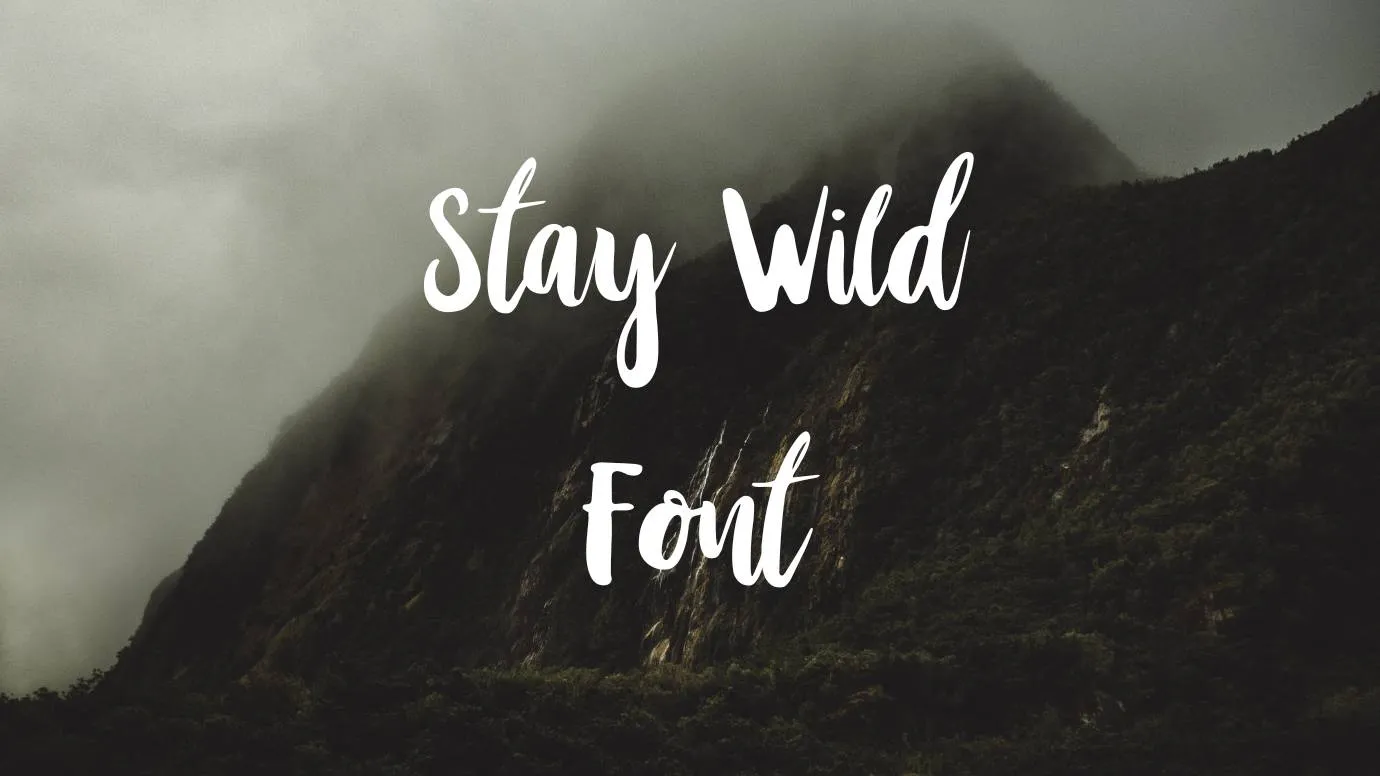
Stay Wild Font Family is a script font and Aldy Sidik is the real manufacturer of this typography and designed it with unique styles. And the original publisher of this typeface was Dikas Studio. Its free version is available for use in all True Type and Open Type design projects.
This family is effective for use in more unique designing purposes that you can pick by making its pairing it with restu font which comes in the script font family.  It is mostly used for making tattoo designs of different shapes and styles.
Stay Wild Font